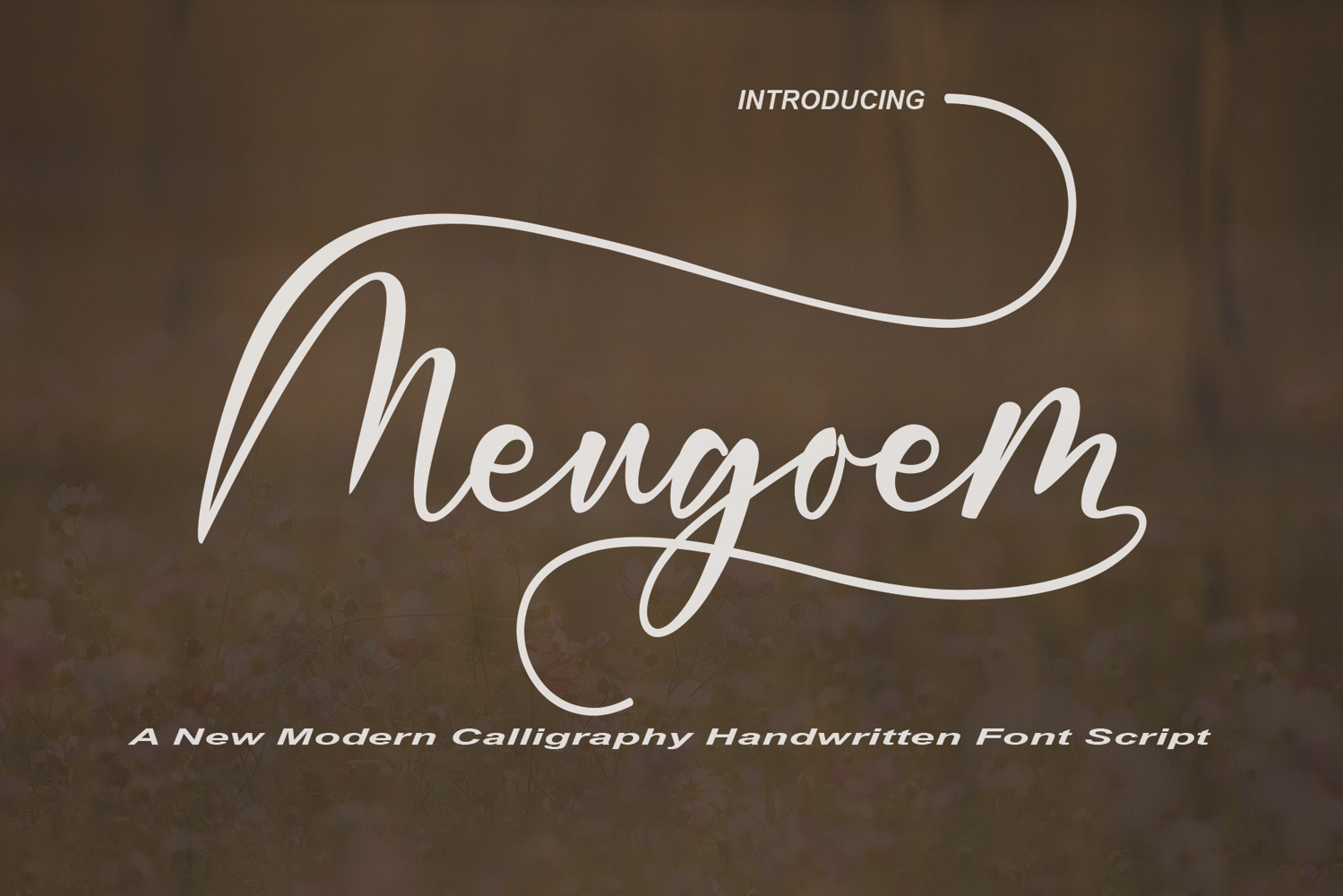
Meugoem
Font Script Meugoem
Meugoem Font Script are fonts of regular stylish calligraphy that have a varied base line, fine lines, classic and elegant touches. Can be used for various purposes. Such as title, signature, logo, wedding invitation, t-shirt, letterhead, nameplate, label, news, poster, badge etc.
Meugoem Script displays alternate characters. Includes initial letters and terminals, alternatives, ligatures and multiple language support.
The Features of this fonts is:
* Standart ligatures
* Stylistic Alternates
* Stylistic sets
* Contextual Alternates
* Swash
a font that made the hand by having the character up and down like a dancer. Meugoem Font Duo has a very unique style of calligraphy, it is very suitable for use in the work of modern design.